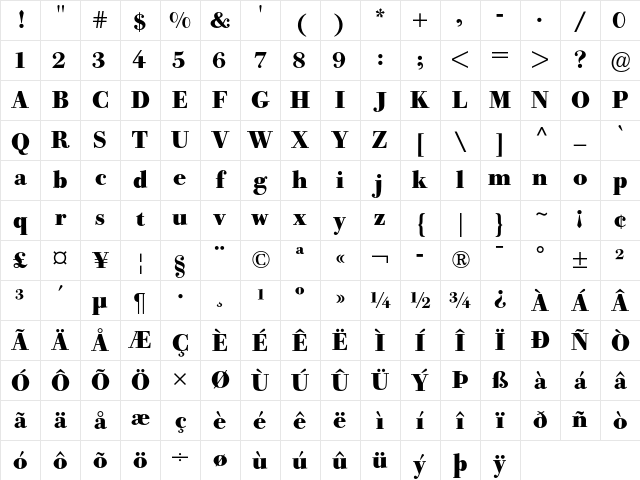
Bodoni Old Face BE Bold Free Font
Bodoni Old Face BE Bold
Complete Bodoni Old Face BE Bold glyph index. Displaying only characters natively supported by Bodoni Old Face BE Bold font.
Design Context for Bodoni Old Face BE
Bodoni Old Face BE is a composed and adaptable typeface that performs quietly and consistently across a wide range of design contexts. Its bold stroke weight gives it real presence on the page.